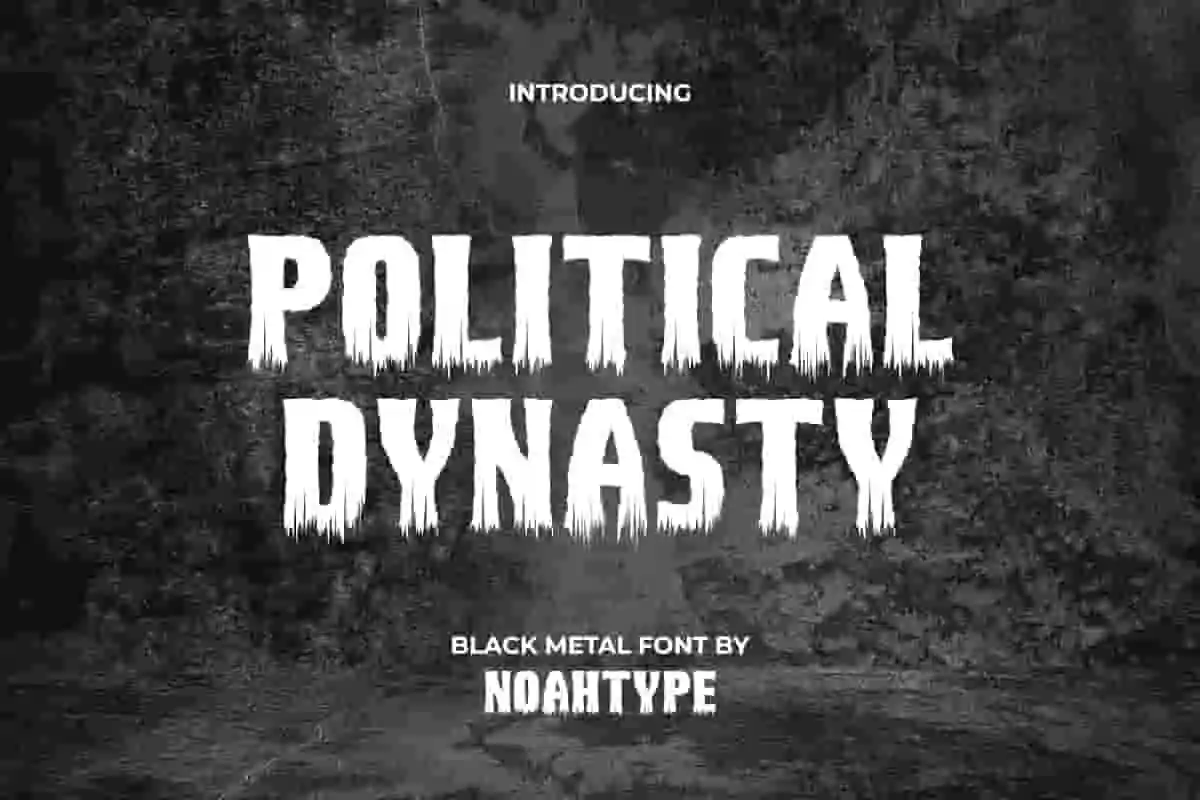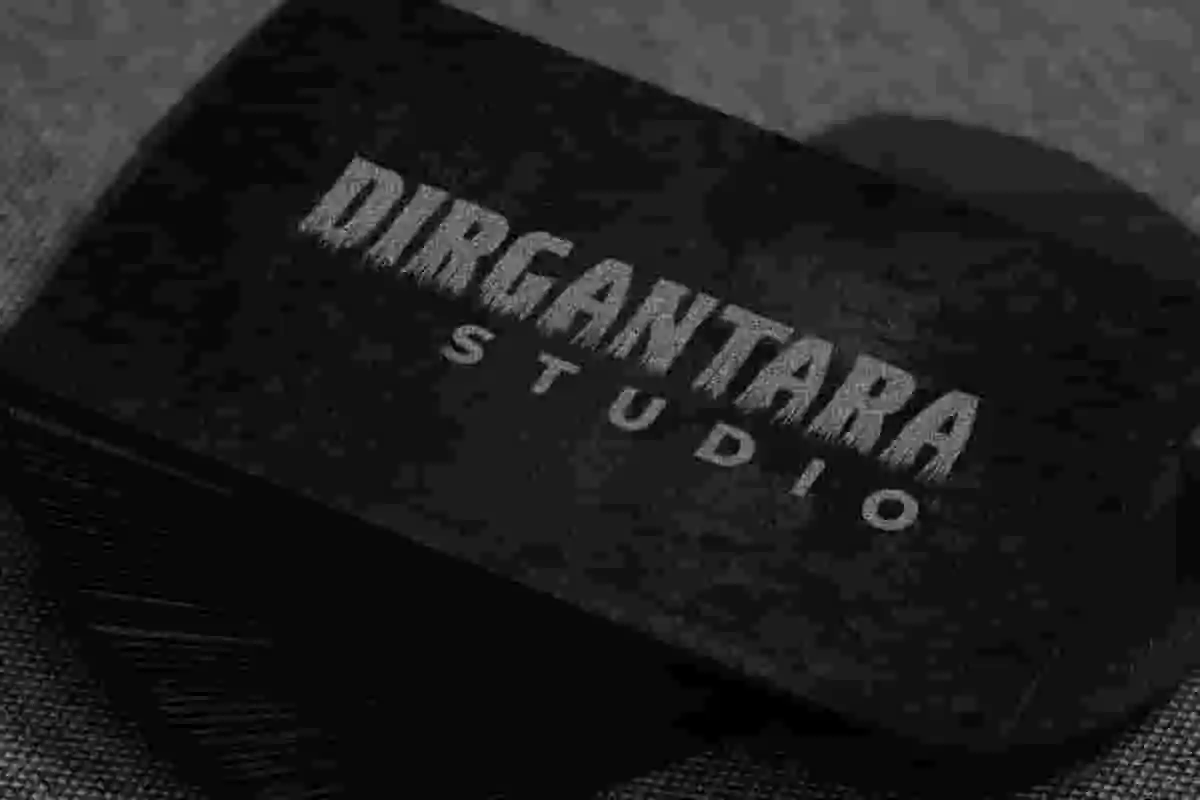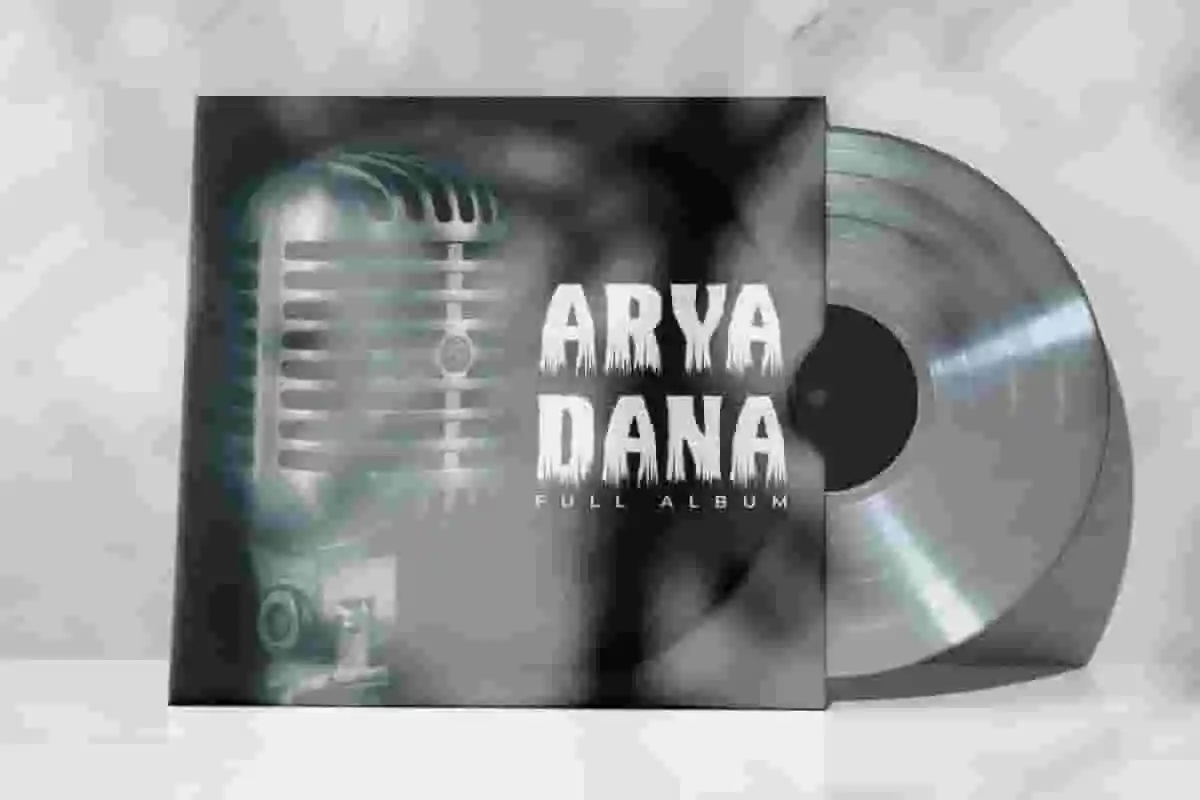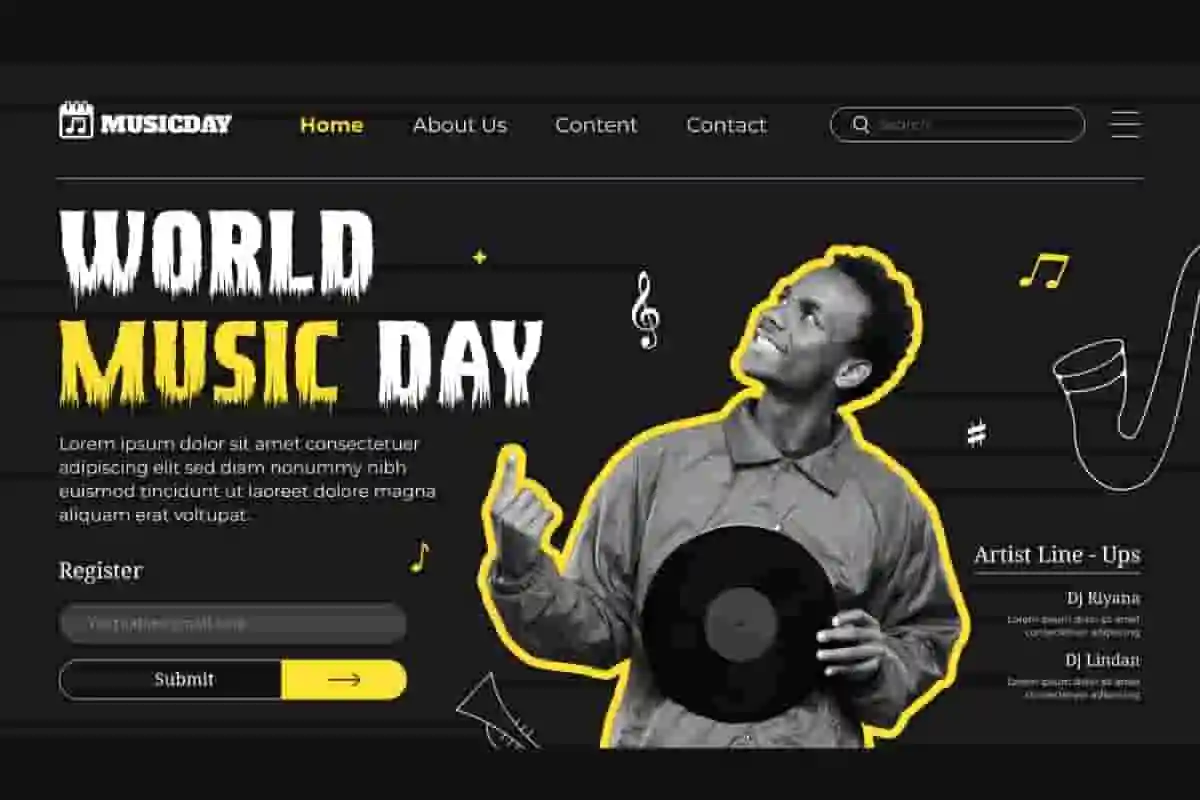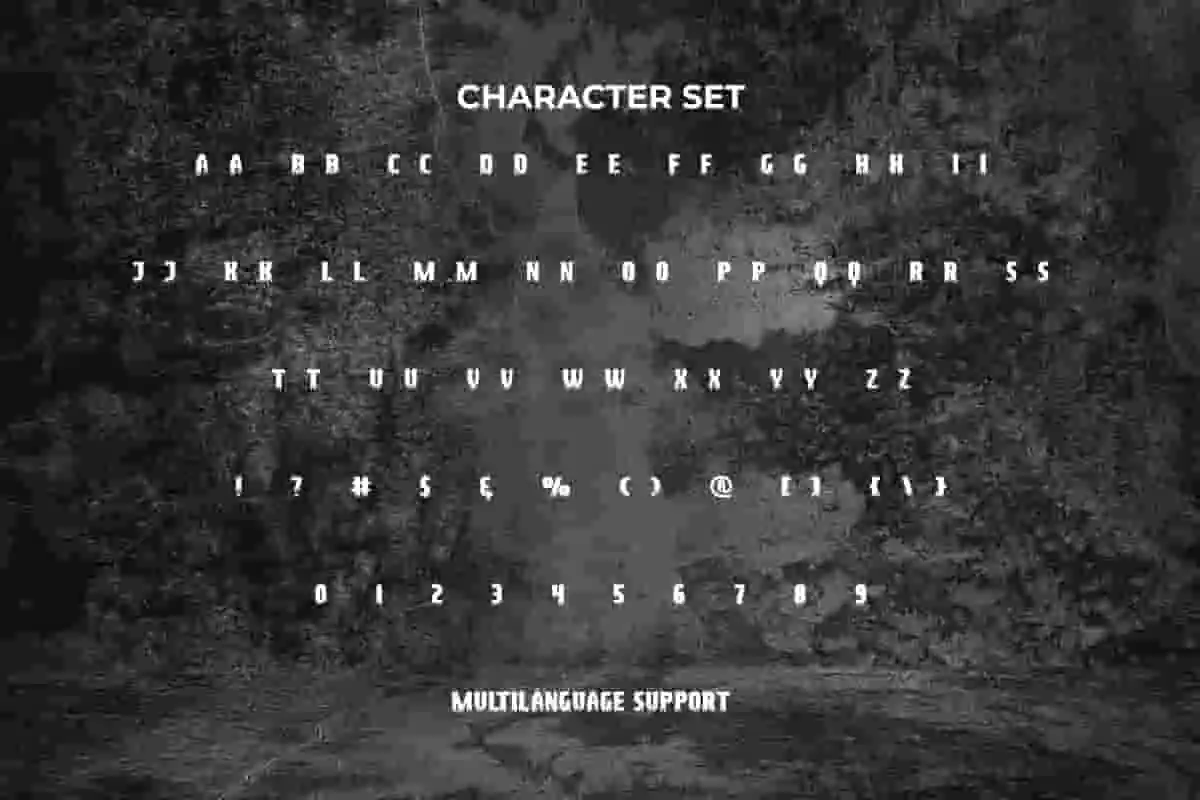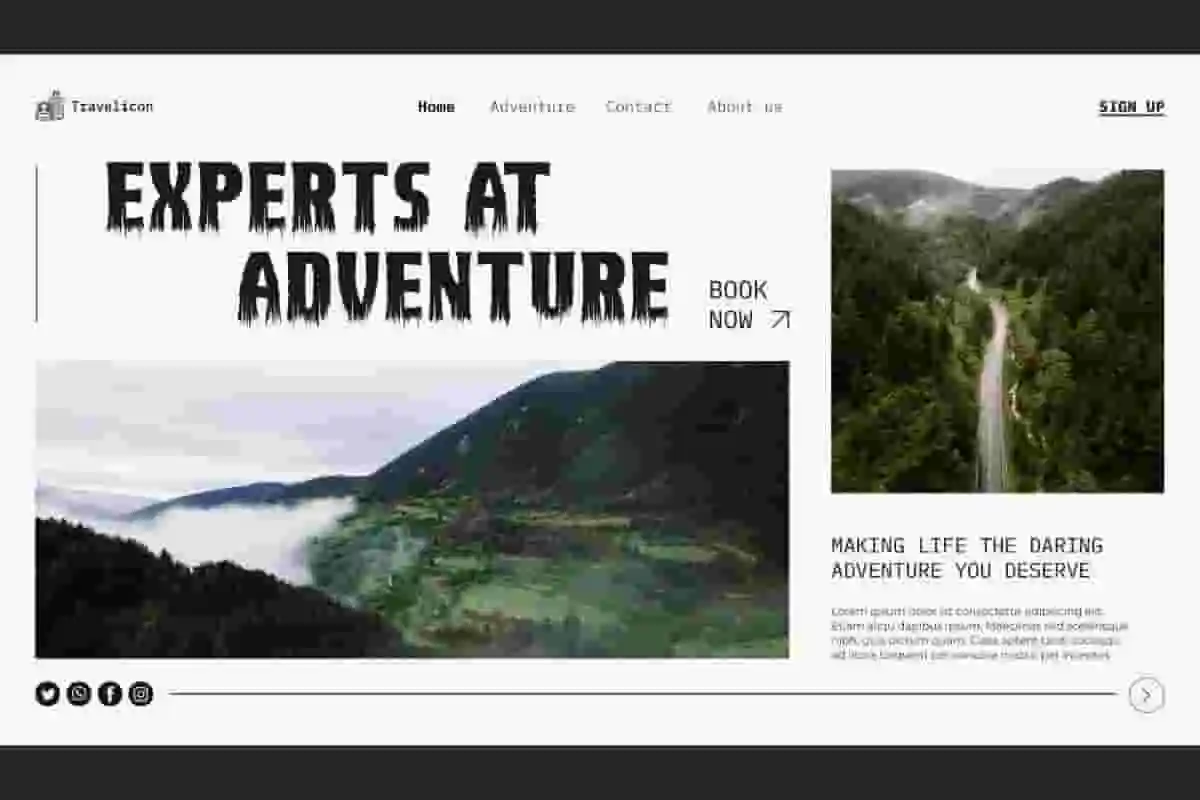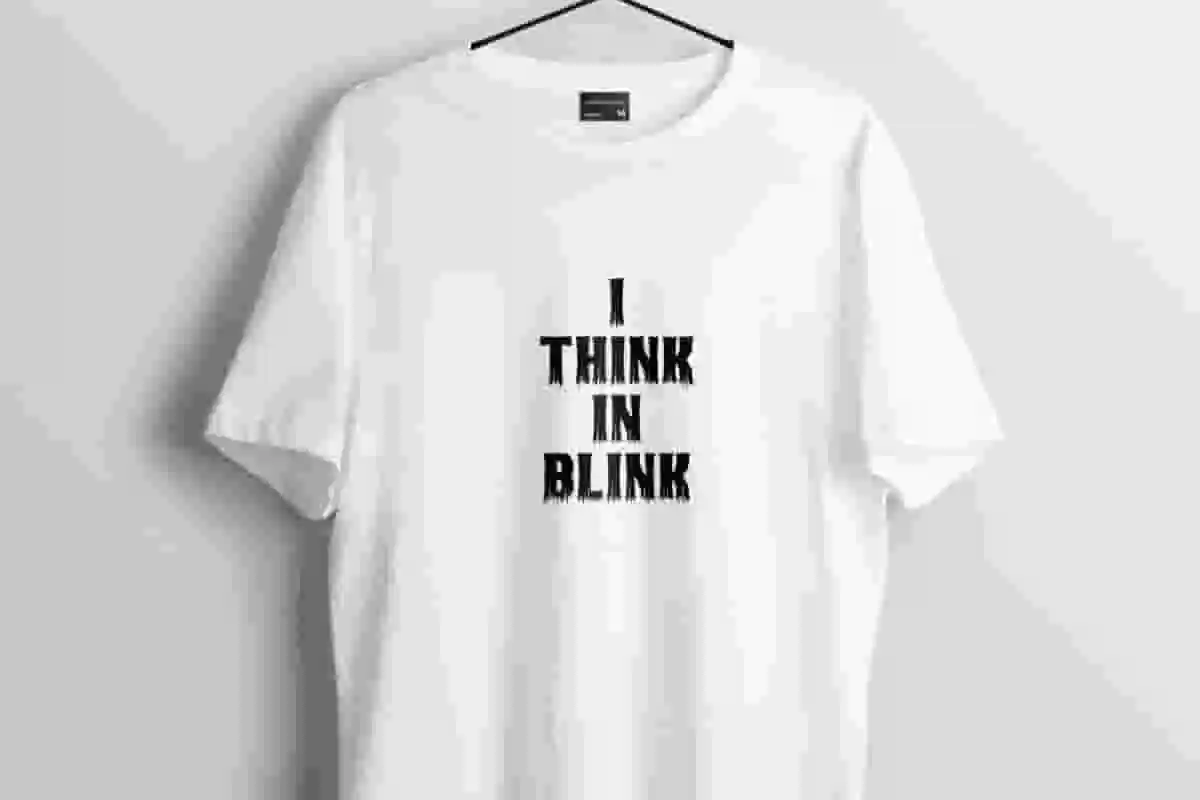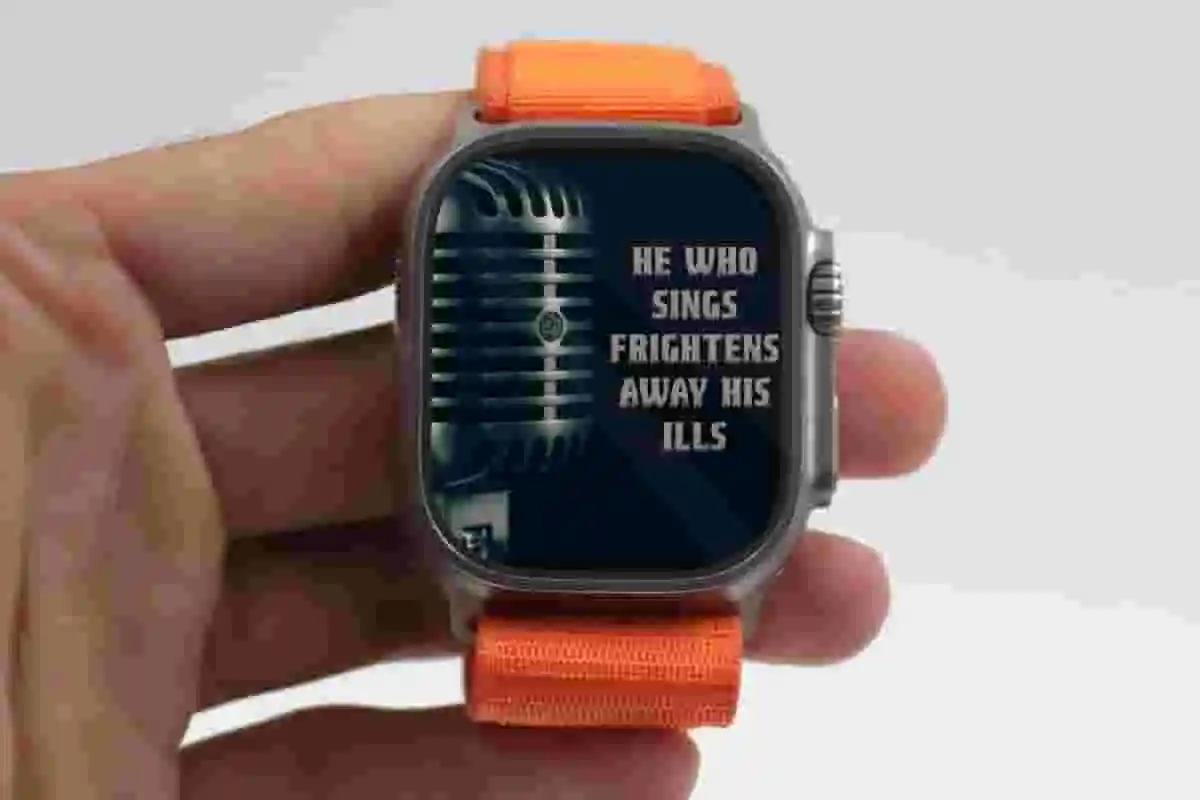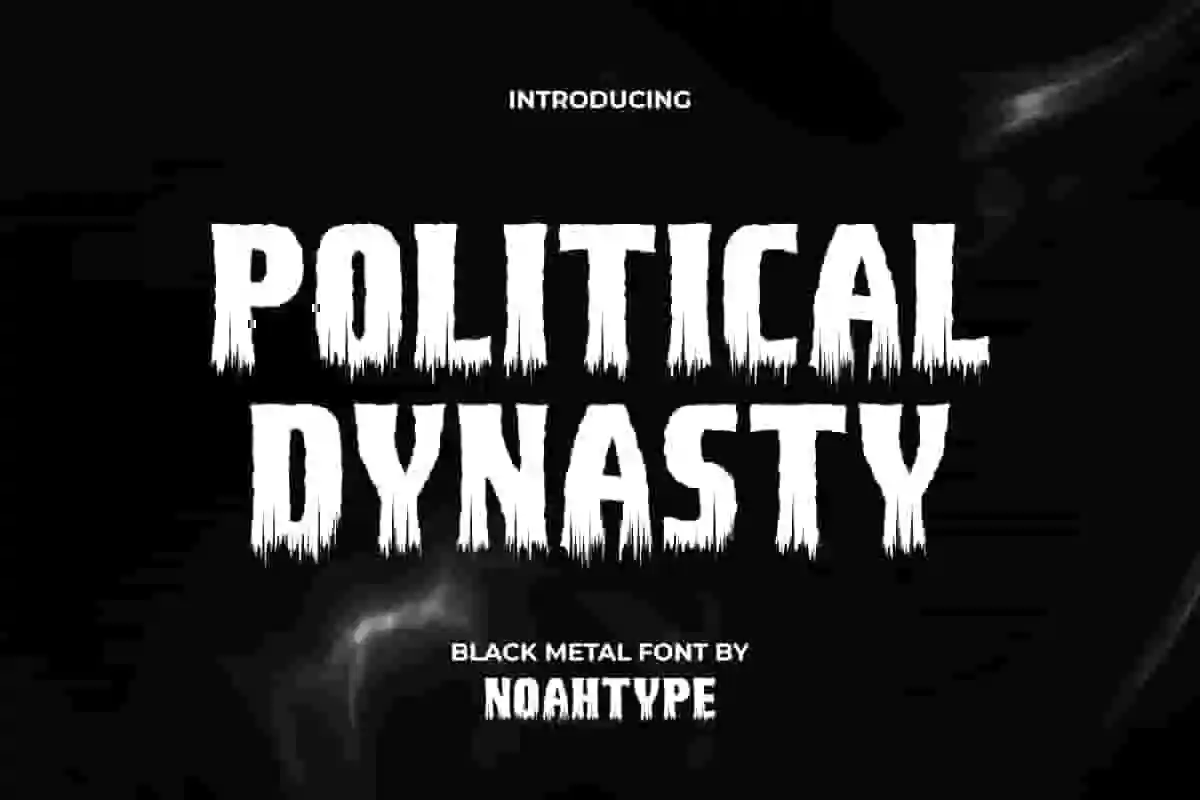
Political Dynasty Font is a mysterious unique decorated Black Metal font by NoahType. This font has a strong character with the bottom of the character like scratches, leaving a scary impression. It will be perfect for any designs, such as custom design, brand image, poster, label, invitation, cover, marketing material, menu, printing, product packaging, quotes, signage, website, and many more!
Political Dynasty Font includes full set of ALL CAPS for Uppercase and Lowercase Basic Characters, Numerals, Punctuation, and Symbol. This cool font will make your design awesome and also a perfect choice for many industries, such as game, movie, comic, music, accessories, advertising, art, café, event or festival, fashion, printing, publishing, etc.